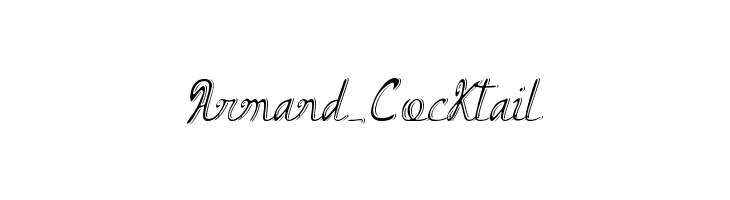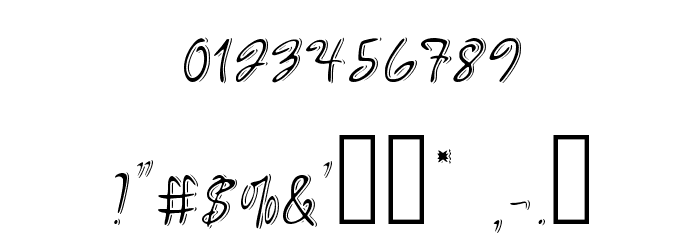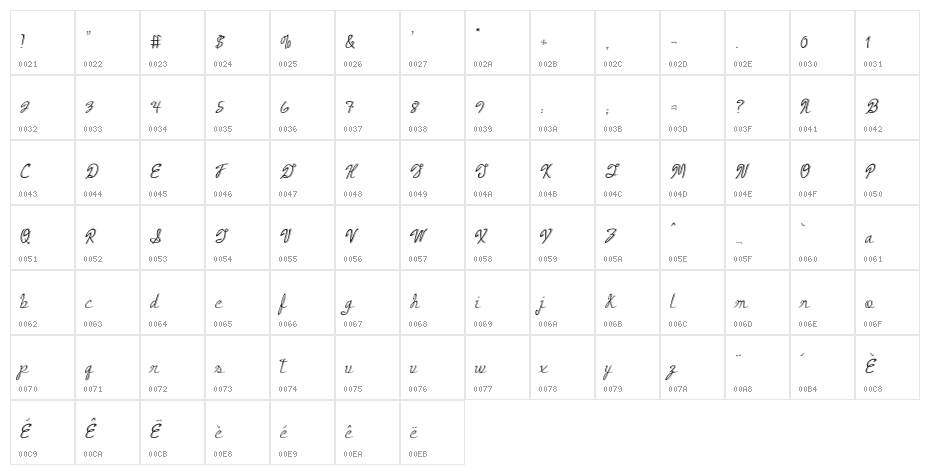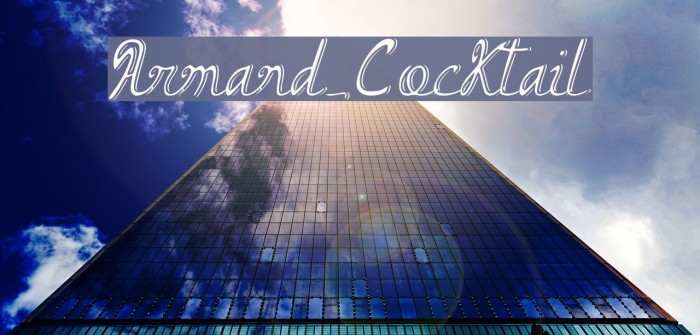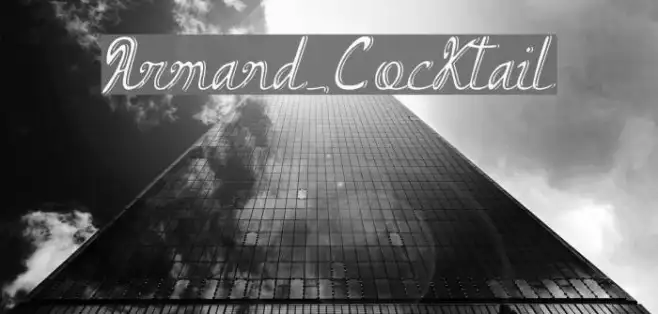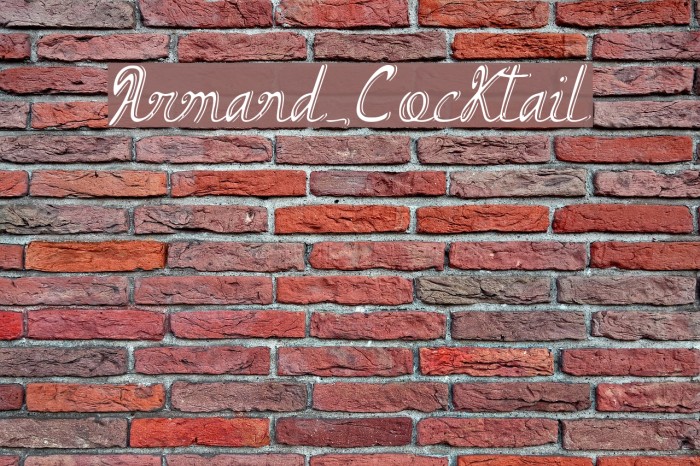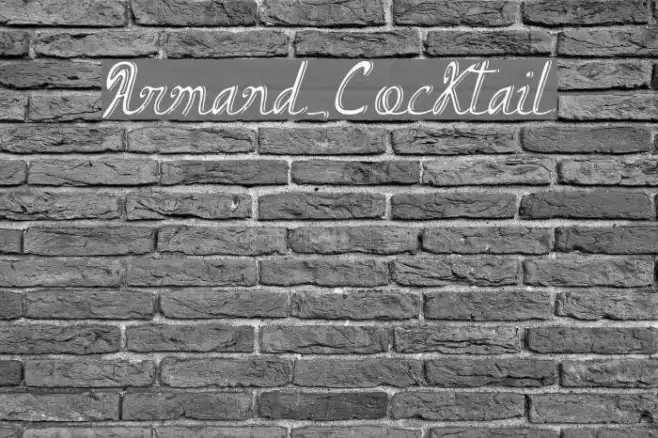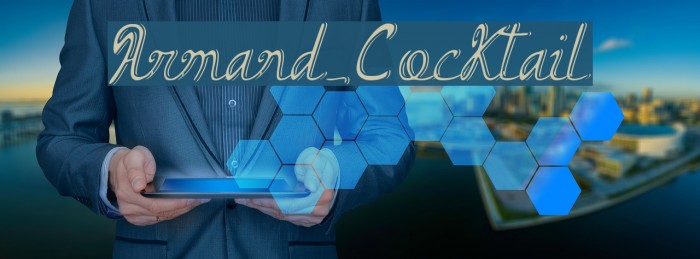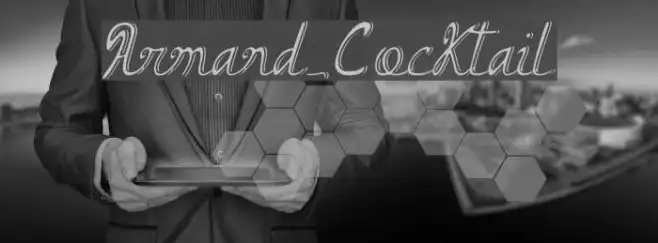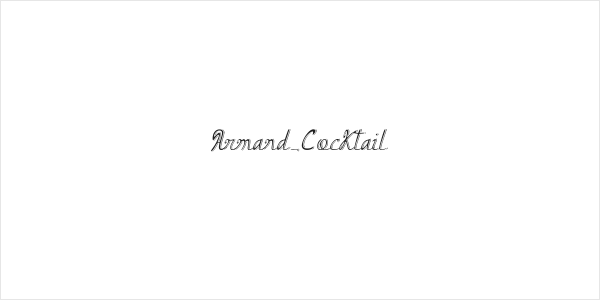
Armand_Cocktail Font
Armand_Cocktail Description
This font exudes a sophisticated and elegant style with its flowing script and intricate detailing. The characters are designed with a graceful, cursive flair, featuring smooth curves and delicate loops that create a sense of fluidity and movement. The uppercase letters stand tall with a slight slant, while the lowercase letters maintain a consistent, harmonious flow. The numerals and special characters are crafted with the same attention to detail, ensuring a cohesive look throughout. This font is perfect for projects that require a touch of class and refinement.